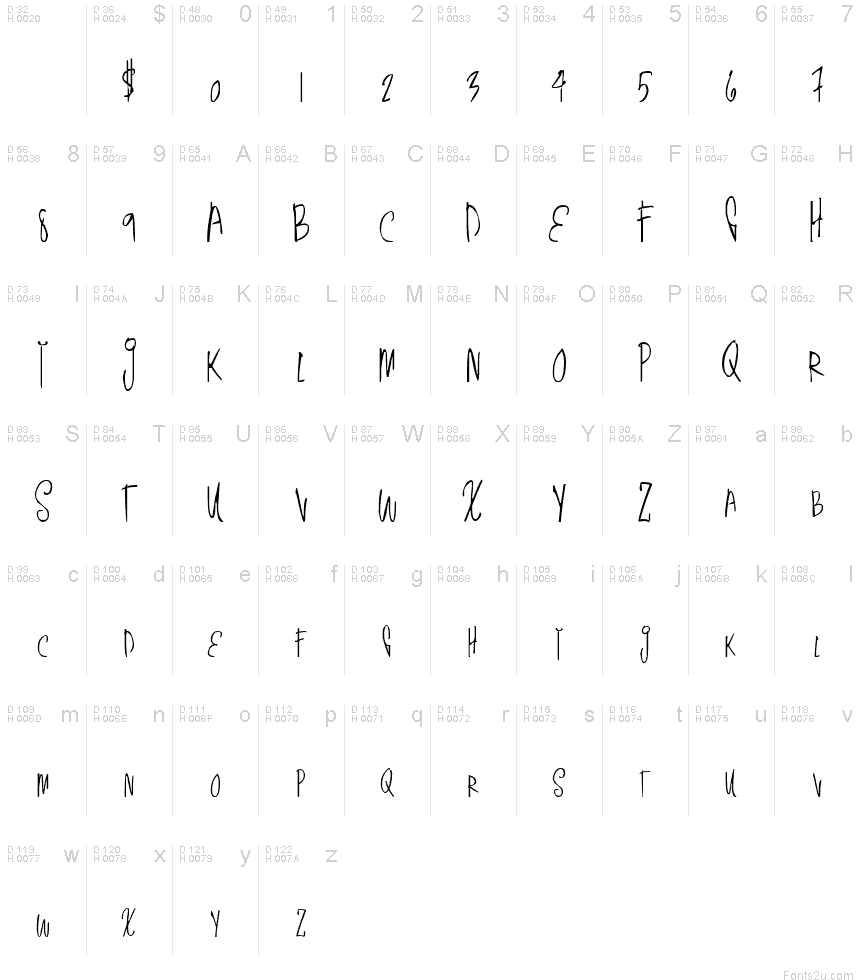
Thin Simple by Xerographer Fonts is a free handwritten font with extremely tall, narrow letters, abrupt stroke changes, and oversized loops. Its wiry lines rarely settle into a regular rhythm.
The elongated lettering echoes loose figure drawing and fashion sketching, a useful connection for editorial covers and boutique packaging. On music posters and event invitations, its uneven curves can act like part of the artwork rather than a polished typographic layer. That raw, improvised silhouette is especially convincing for independent fashion, experimental music, and contemporary art events with a strong DIY outlook.